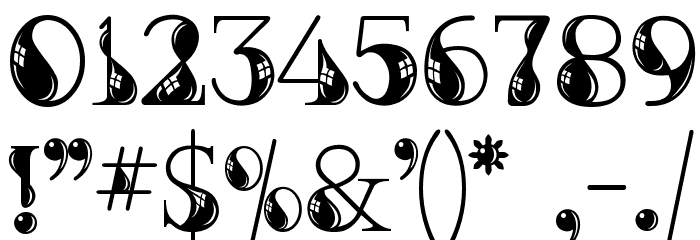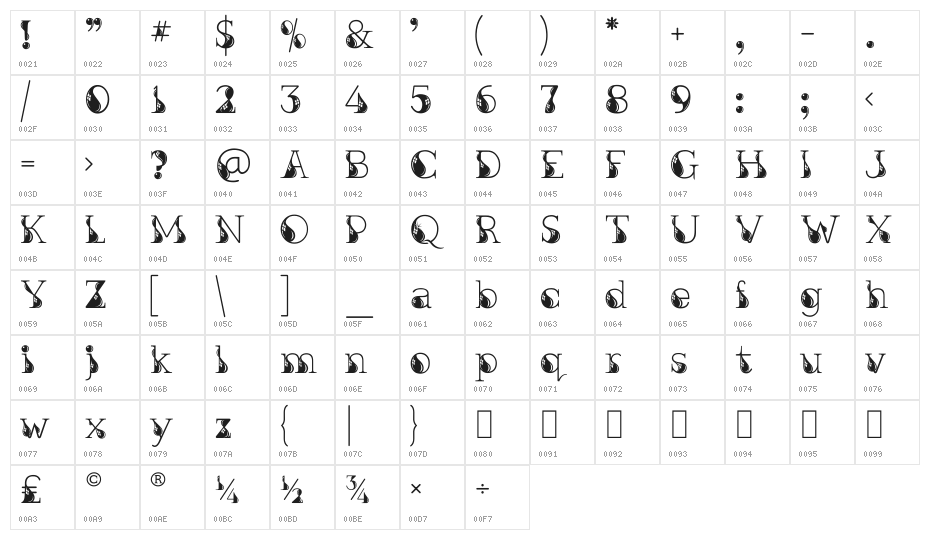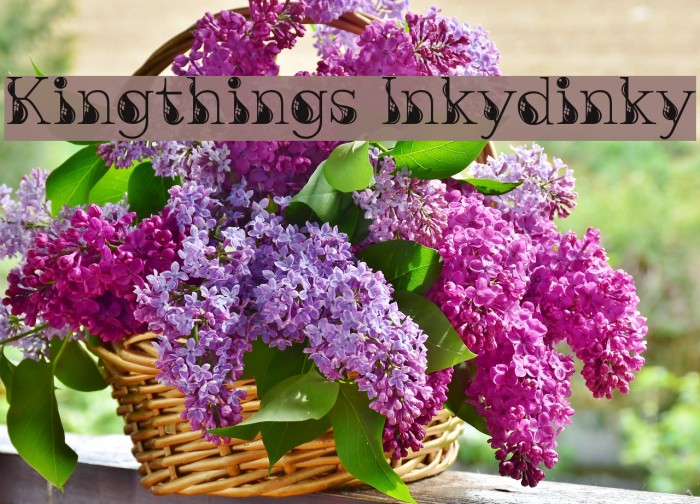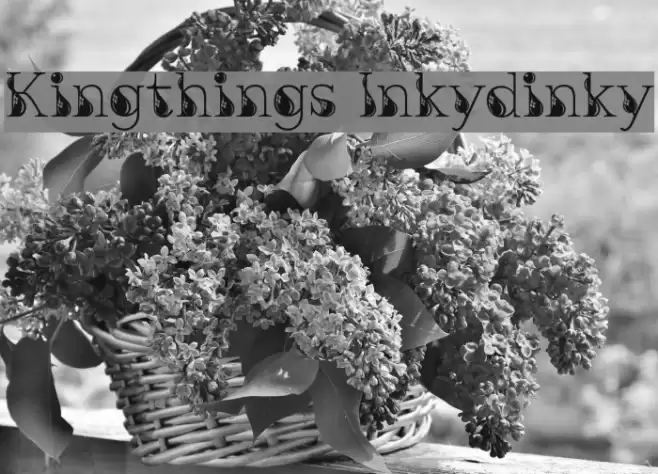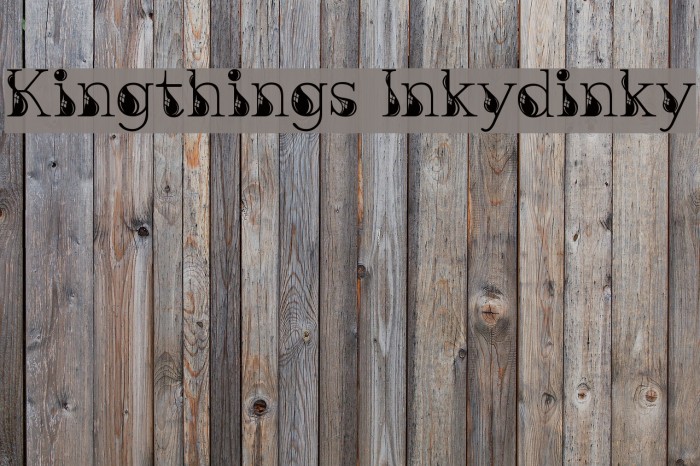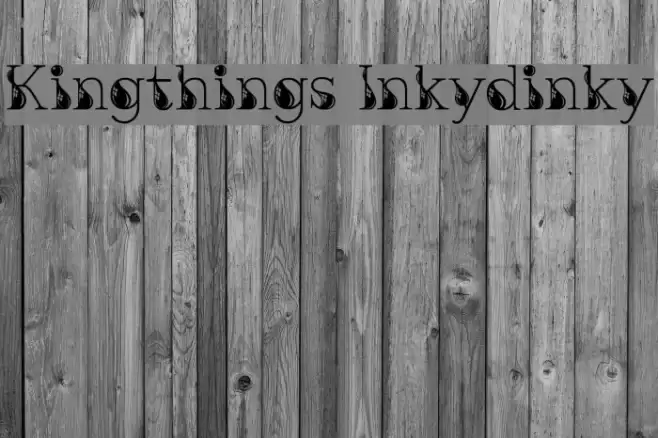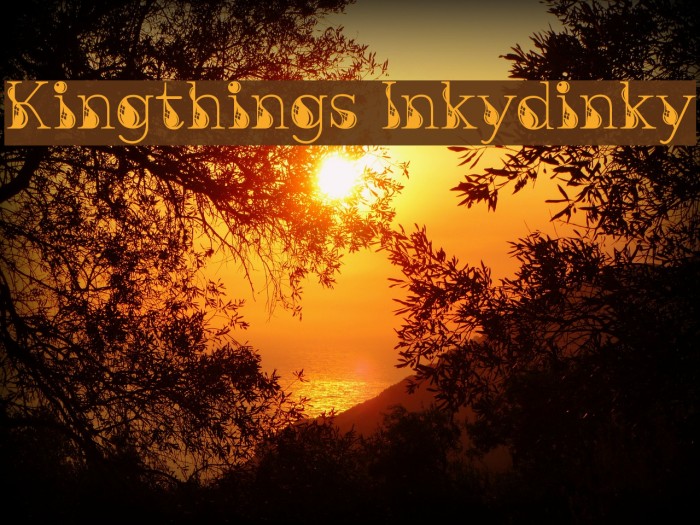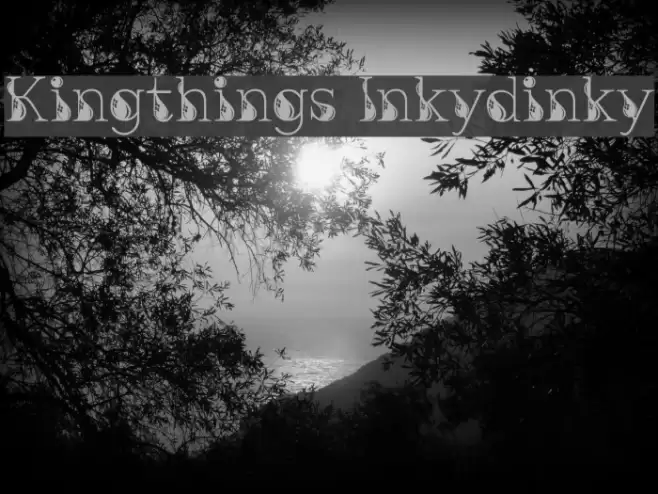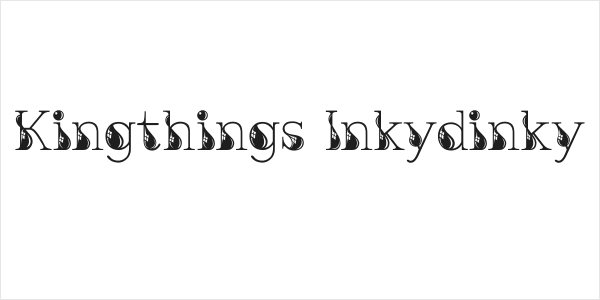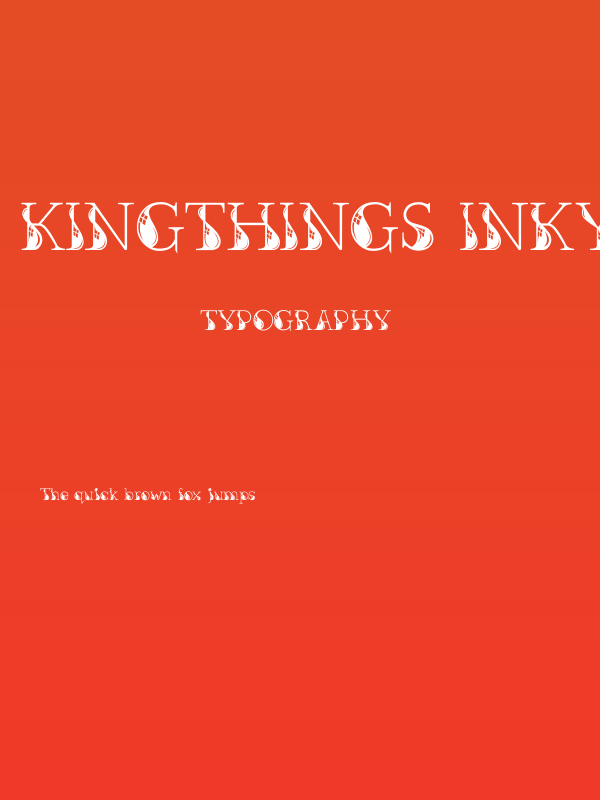
Kingthings Inkydinky Font
Kingthings Inkydinky Description
This font features a whimsical and playful design, characterized by its unique decorative elements within each letter. The letters have a bold, artistic flair with intricate patterns that resemble ink splatters or doodles, adding a sense of creativity and fun. The uppercase and lowercase letters maintain a consistent style, with a slightly exaggerated serif that enhances the decorative aspect. The numbers and special characters follow the same artistic theme, making the font suitable for projects that require a touch of whimsy and creativity.
| Use Case | Headlines, Logos, Artistic projects |
| Proposed Projects | Ideal for children's book covers, playful branding, creative posters, and artistic invitations. |